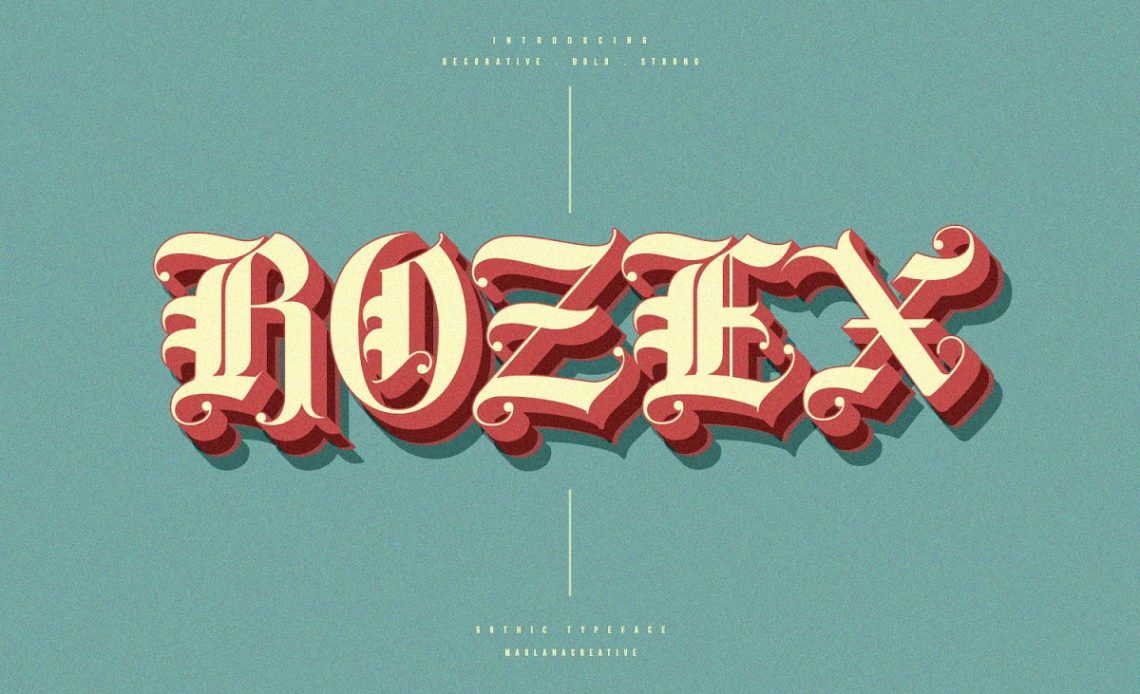
Introducing Rozex - Bold Decorative Gothic Font, the ultimate choice for fashion brands! Created by Maulana Creative, this font will elevate your designs and captivate your audience with its medieval gothic charm.
Are you in search of a bold handlettering decorative font that adds a touch of elegance to your projects? Look no further than Rozex Font! With its unique and eye-catching design, Rozex is the perfect choice for any occasion – whether it's designing a book cover, creating a stunning logo, printing materials, developing a captivating game, organizing an unforgettable event, composing music, or designing an invitation.
What sets Rozex Font apart is its versatility. With its Basic Latin A-Z, a-z, numbers, punctuation, alternate characters, and ligature, you have the freedom to create unique and personalized designs that truly represent your brand's identity.
But Rozex Font isn't just about versatility; it's about making a statement. This font exudes a powerful and emotive aura, drawing your audience in and leaving a lasting impression. Its bold strokes and intricate details will make your designs stand out from the crowd and evoke a sense of mystery and sophistication.